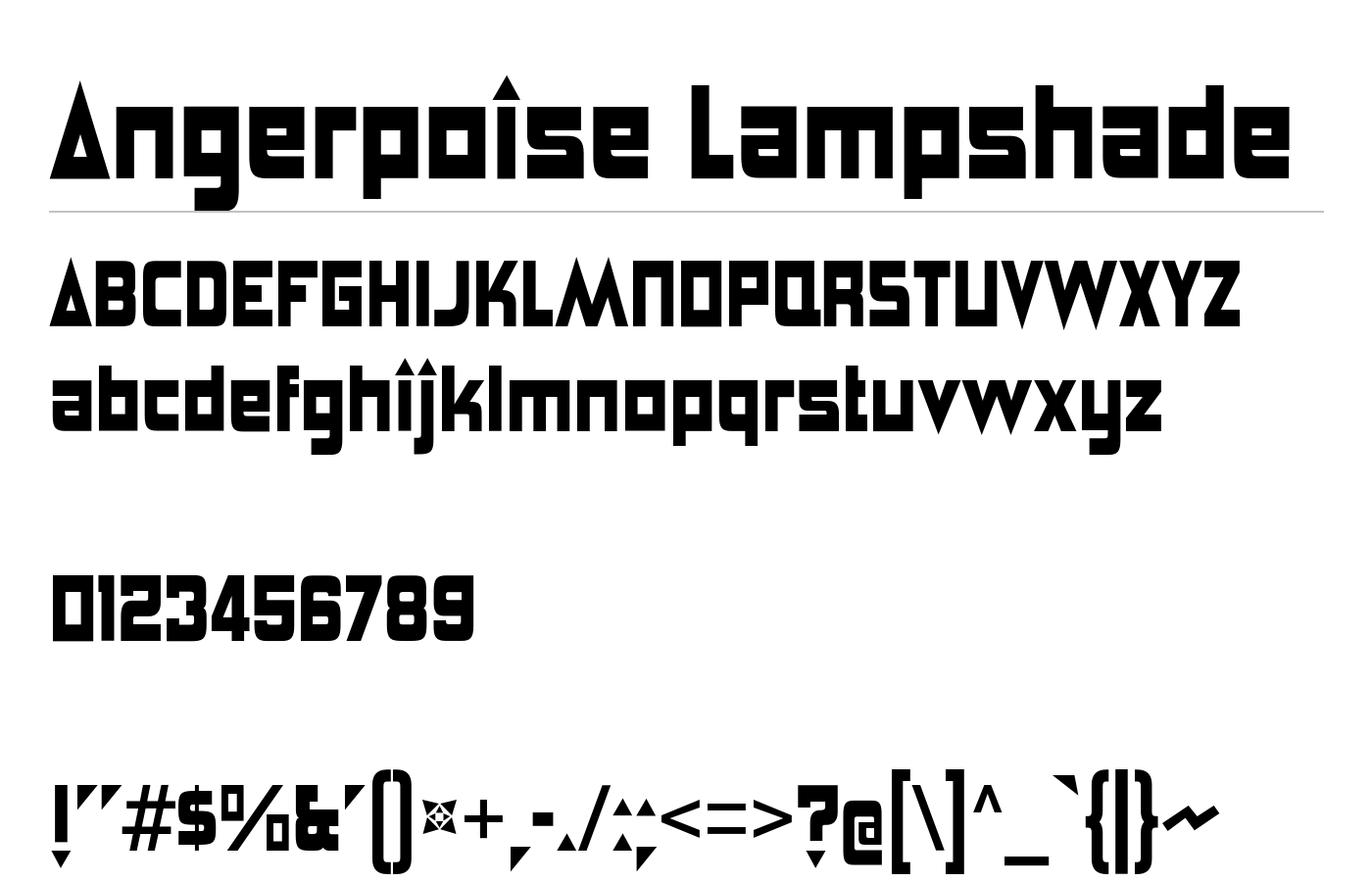
Angerpoise Lampshade is a bold, geometric sans serif font with a strong, angular design that gives it a modern and futuristic feel. Its distinct shapes and high contrast between thick and thin lines make it highly eye-catching, ideal for logos, headlines, and branding that seek a striking, tech-inspired aesthetic. This font works best in display settings where its unique character can stand out and convey a sense of innovation and contemporary style.
Angerpoise Lampshade Font
About Angerpoise Lampshade Font